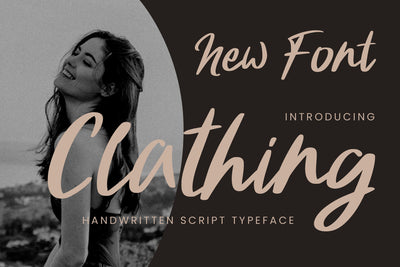
Clathing - Brushed Script Font
Clathing is a brushed script font with an authentic vibe.
It is perfect for branding projects, logo, wedding designs, social media posts, advertisements, product packaging, product designs, label, photography, watermark, invitation, stationery and any projects that need handwriting taste.